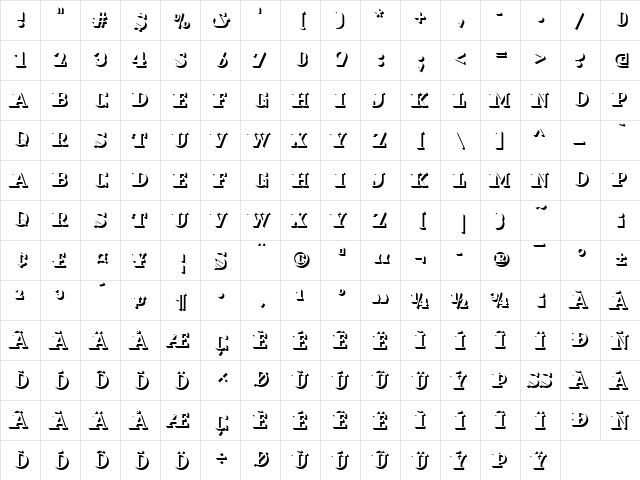
Dextor Becker Only shadow Regular
Design Context for Dextor Becker Only shadow Typeface
Dextor Becker Only shadow is built around its visual character rather than neutral utility — its distinctive forms are designed to make an impression at display sizes.
Font Pairing: Pair with a clean neutral sans-serif for body copy to let Dextor Becker Only shadow's character lead without overwhelming the composition.
Pro Tip: Use Dextor Becker Only shadow exclusively at display sizes — it was designed to be seen, not read at length. Let a neutral companion handle body copy.